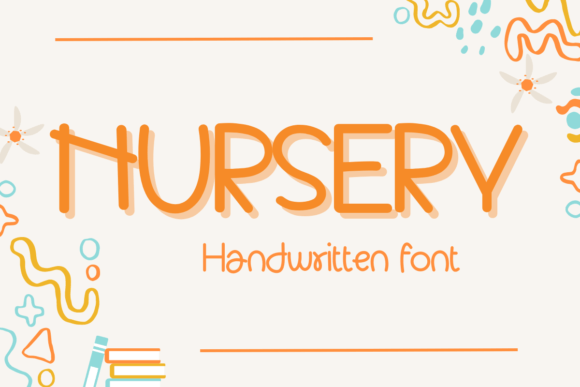
Journey into the world of Nursery Font, a captivating handwritten font that dances across your screen like a gentle whisper. Inspired by the innocence and playfulness of childhood, Nursery Font captures the essence of creativity and imagination, inviting you to embark on a whimsical adventure through the world of words.
With its enchanting curves and playful strokes, Nursery Font transforms your digital creations into charming works of art. Whether you're writing a heartfelt letter, crafting a captivating blog post, or designing a joyful invitation, Nursery Font adds a touch of whimsy and wonder to every project.
Dive into the limitless possibilities of Nursery Font and let your words take flight. Express your emotions with heartfelt strokes, create captivating designs that spark curiosity, or simply add a touch of magic to your everyday communications. Nursery Font is your gateway to a world where imagination knows no bounds.
Specifically designed for text videos, Nursery Font brings your words to life with dynamic energy and visual appeal. Its carefully crafted characters dance and flow across the screen, captivating viewers and drawing them into your message. Whether you're creating educational content, sharing personal stories, or promoting your business, Nursery Font ensures that your words leave a lasting impression.
Beyond text videos, Nursery Font shines in a myriad of creative applications. Craft stunning banners that command attention, design eye-catching content that captivates audiences, and create mugs, cards, shirts, and stationery that exude personality and charm. Nursery Font's versatility extends to social media posts, where its playful spirit adds a touch of delight to your interactions.
Nursery Font is not just a font; it's an invitation to let your creativity soar. Its enchanting allure transforms ordinary words into extraordinary expressions, captivating hearts and minds with its playful charm. Embrace the magic of Nursery Font and watch as your words take on a life of their own.